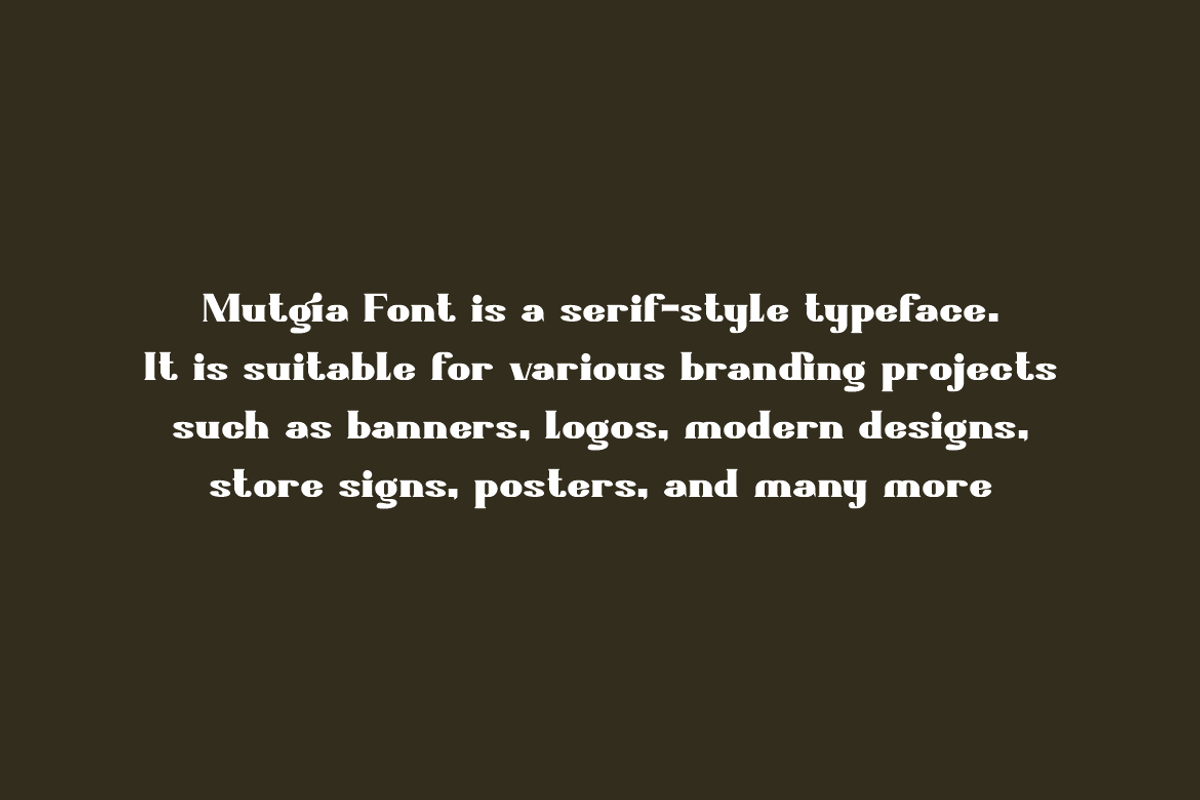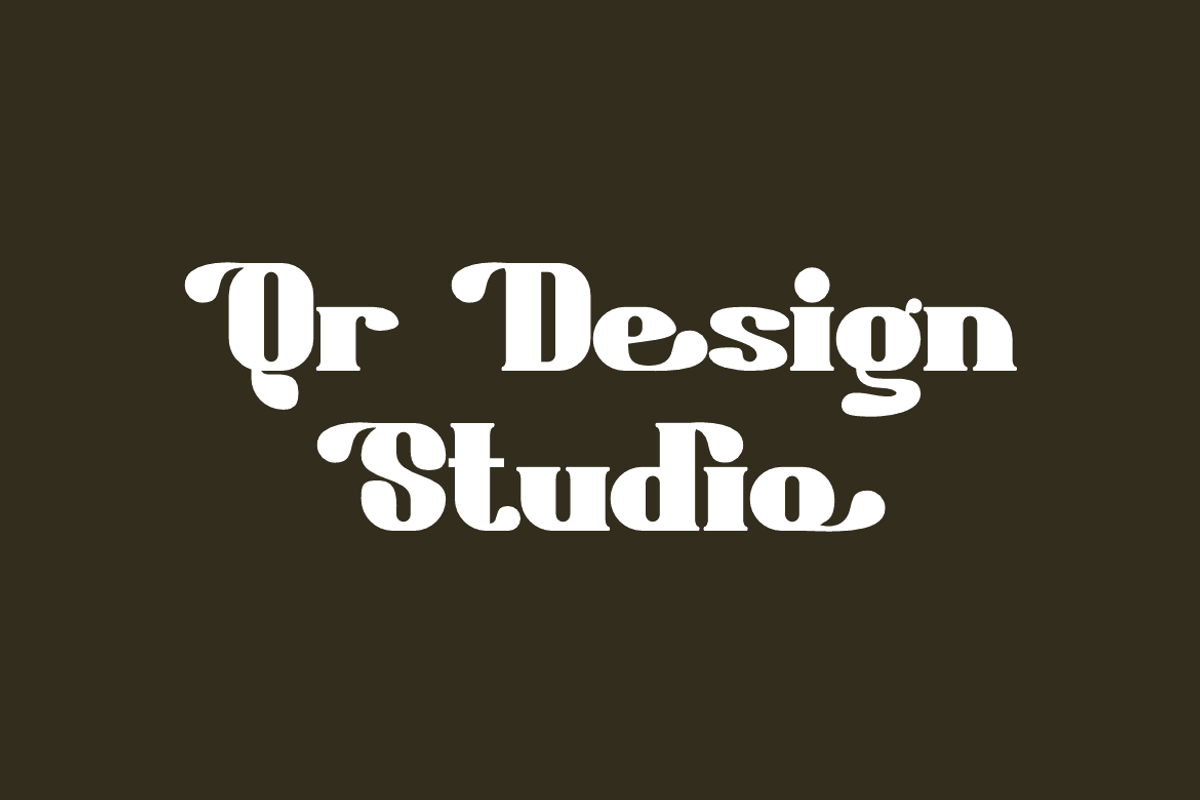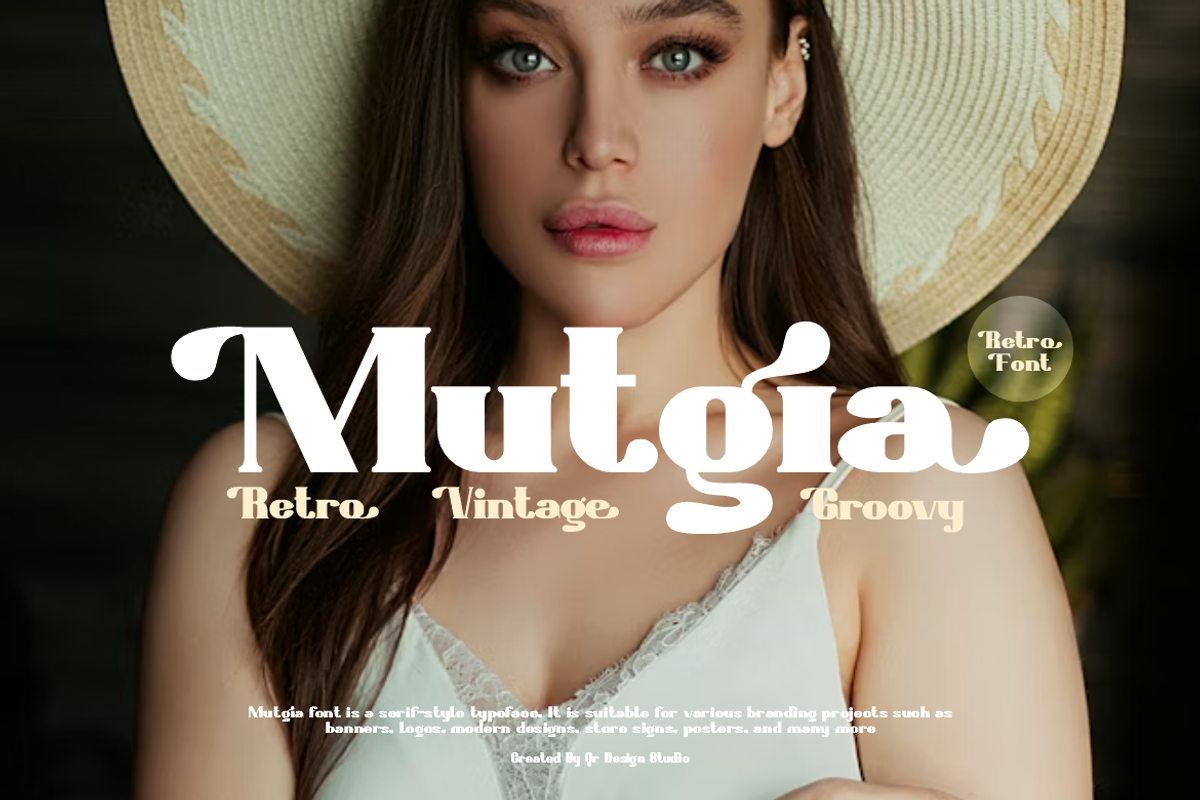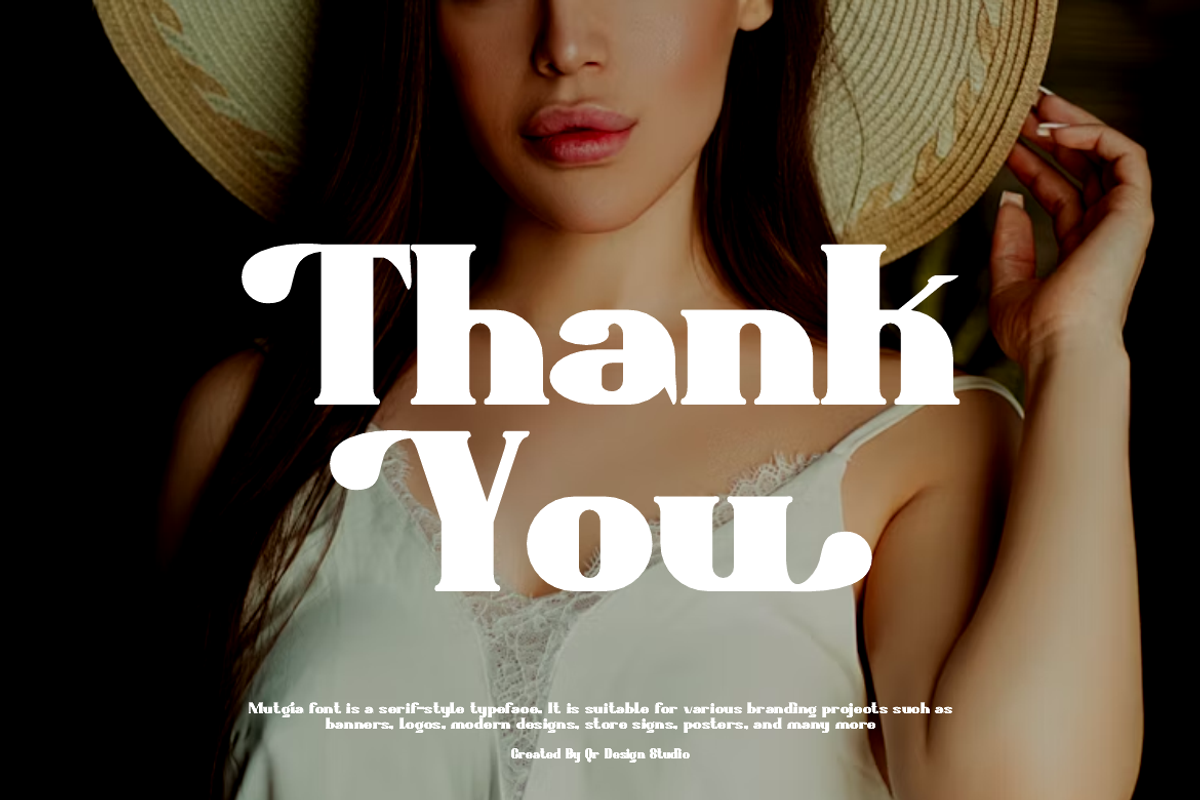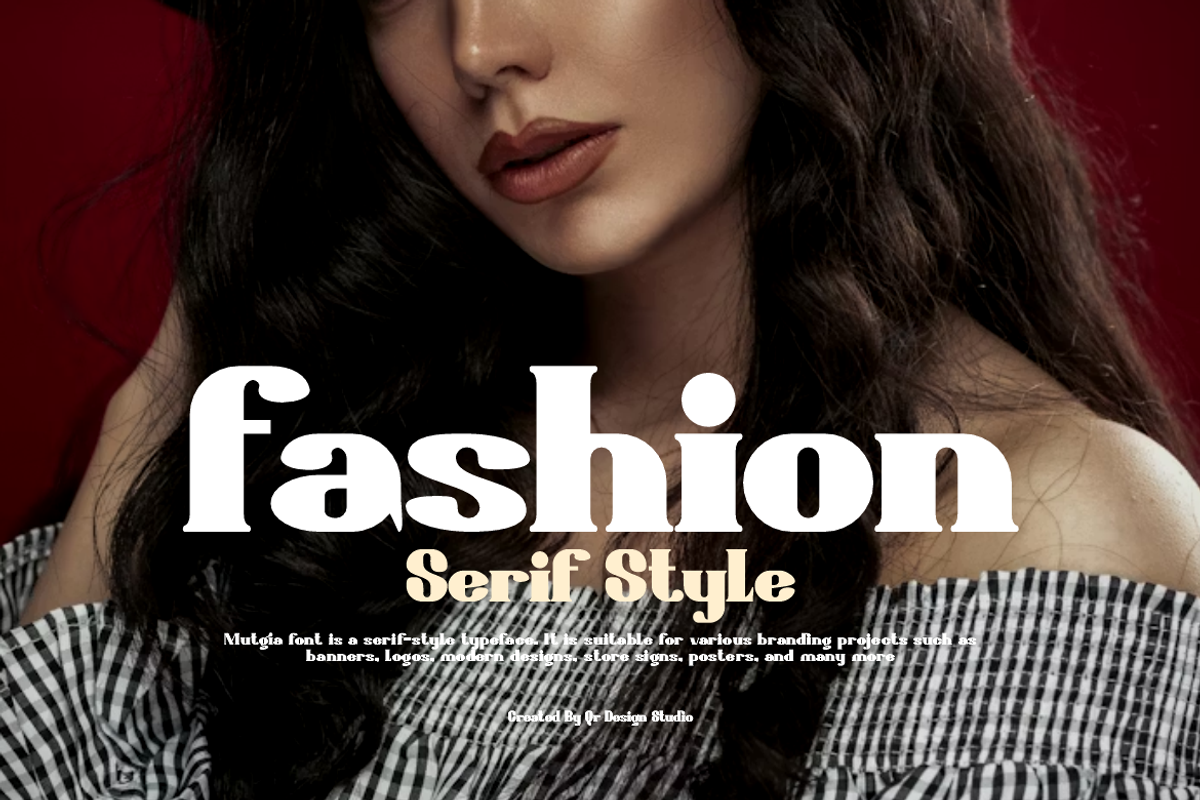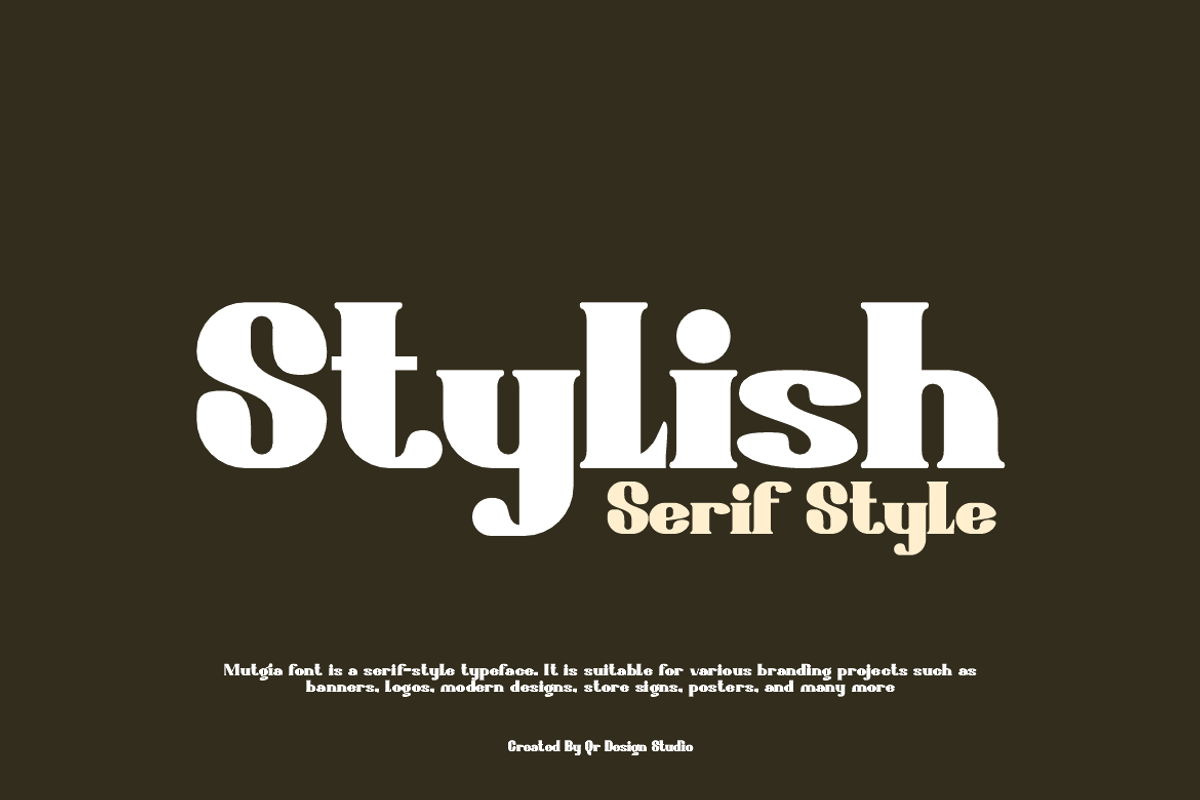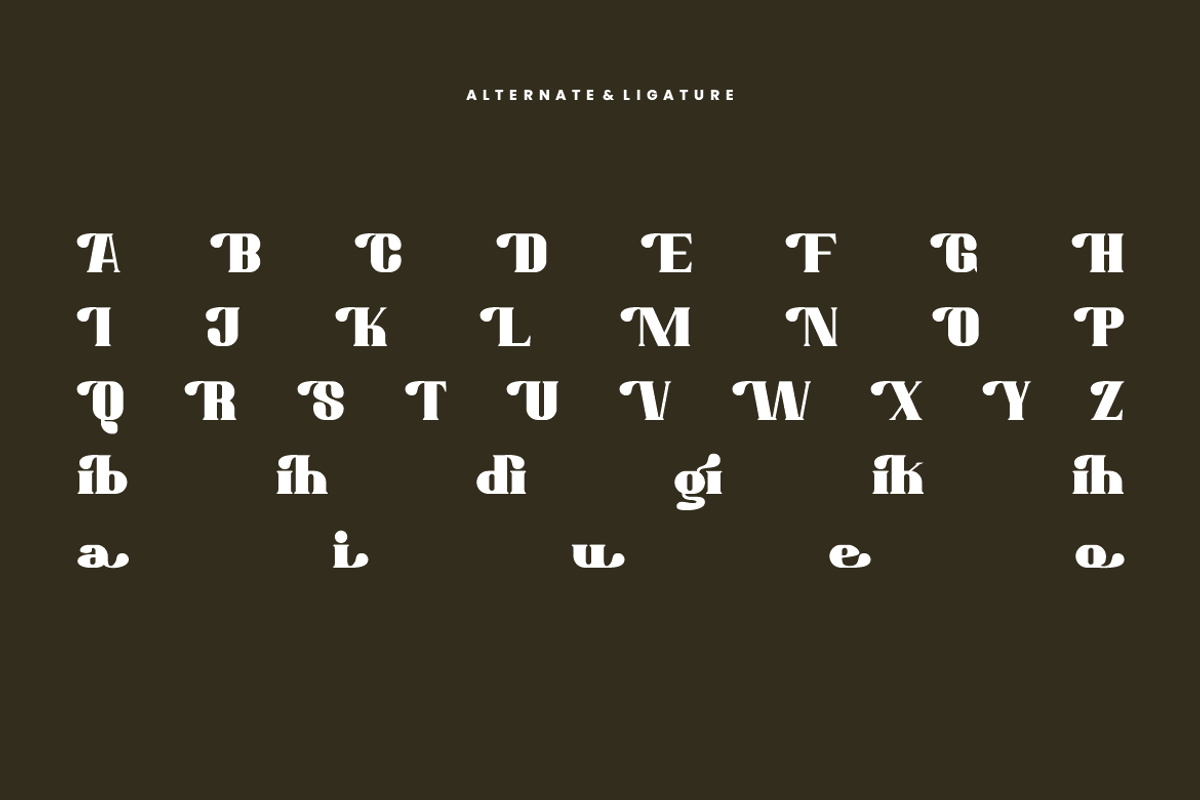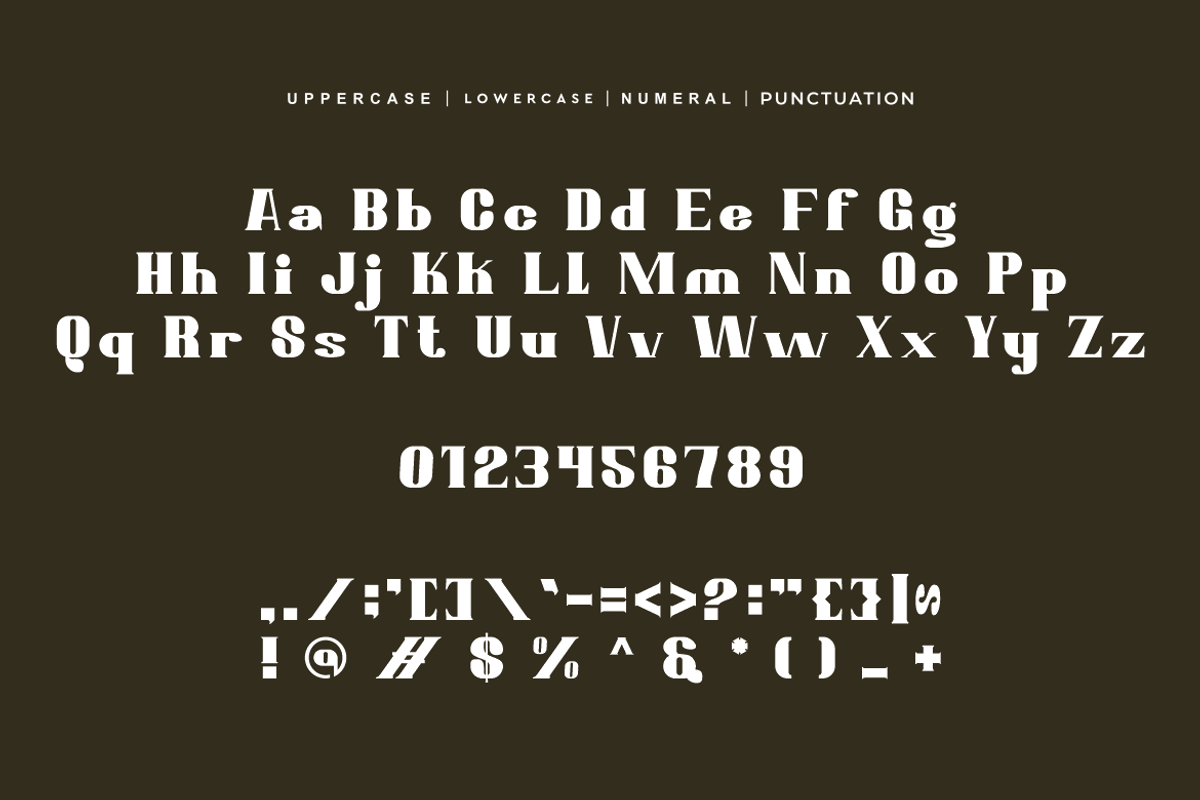
Mutgia - Retro Ligatures Font
Mutgia Font is a serif and authentic display typeface. It’s perfect for various branding projects such as logos, retro designs, and more. This font stands out beautifully in a wide range of contexts.